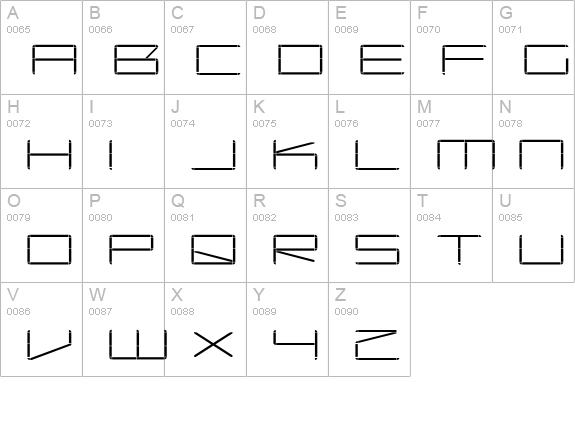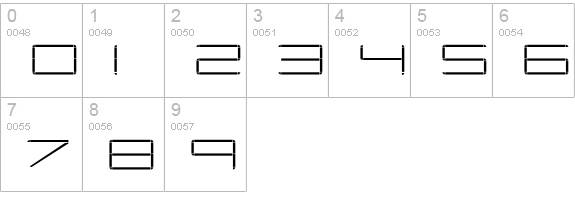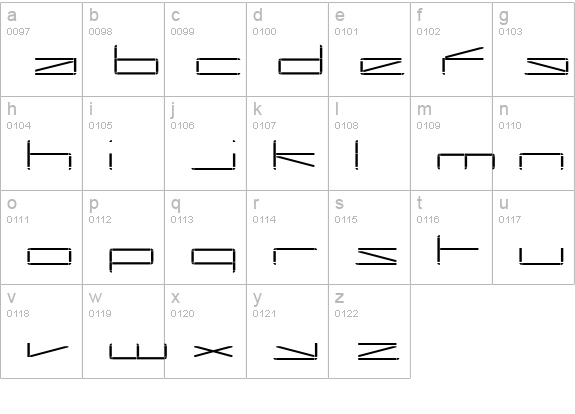
Capacitor regular is the standard, neutral variant in the Capacitor typeface family \xE2\x80\x94 well suited to general body text, paragraphs, and standard typographic work.
Capacitor regular font is a modern and versatile typeface designed to bring a sleek and sophisticated look to your projects. With its clean lines and balanced proportions, this font exudes professionalism and elegance. Perfect for a wide range of design applications, from branding to editorial design, the Capacitor regular font offers a contemporary feel while maintaining readability and clarity. This font comes in a variety of weights and styles, allowing you to create visual hierarchy and add emphasis where needed. Whether you are designing a logo, a website, or a print publication, Capacitor regular font is sure to make a strong impression. Best of all, Capacitor regular font is free to download at FontsMarket.com, making it accessible to designers of all levels. Don't miss out on this opportunity to enhance your projects with this stylish and versatile font.